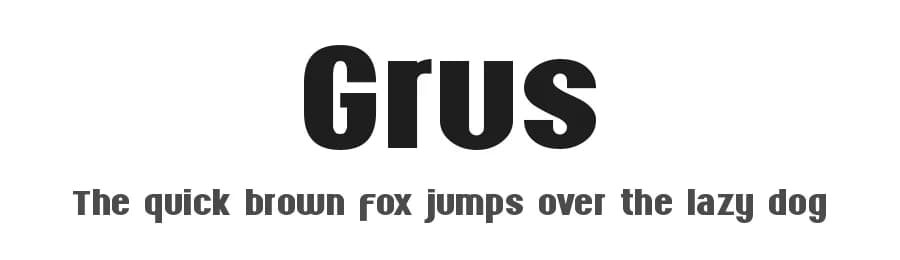
About Grus Font
Grus is a sans-serif font designed by Jorge Algarin. It includes 982 glyphs, a bold weight, TTF (TrueType) format, and 345 languages. Grus is free to download; check the license details on this page before commercial use. Sans-serif fonts like Grus work best for clean body text, user interfaces, branding, and modern layouts.
Grus Font is a versatile sans-serif font that works for both headings and body text. Pair it with a contrasting serif or slab serif font to add visual interest and a clear distinction between titles and body copy.
Grus Font
Grus Font is a sans serif typeface by Jorge Algarin, ideal for logos, invitations, branding, and creative projects.